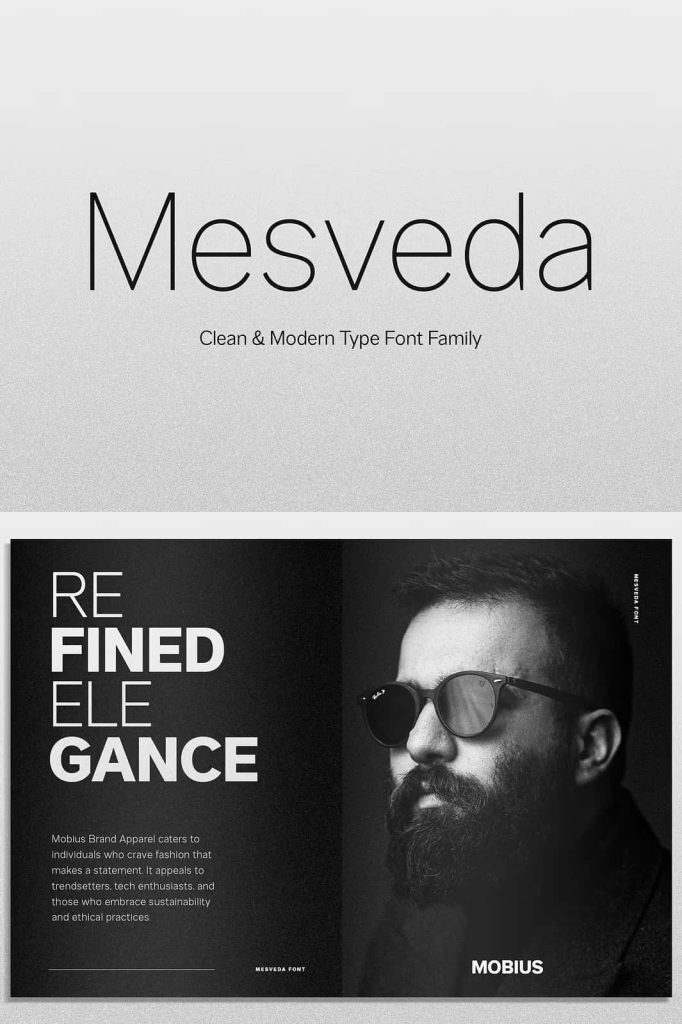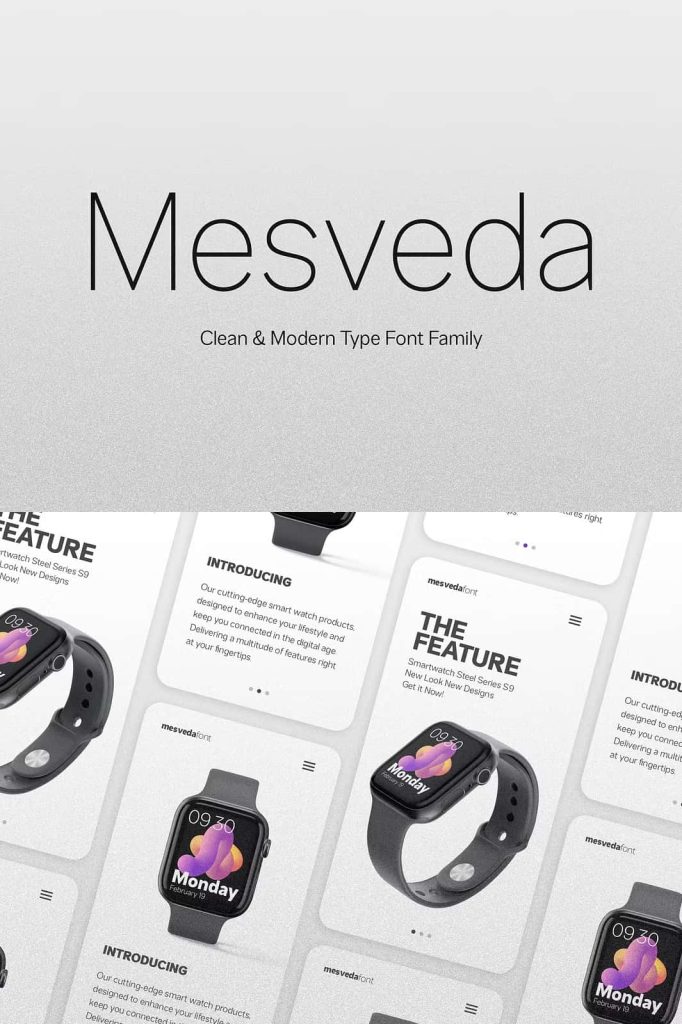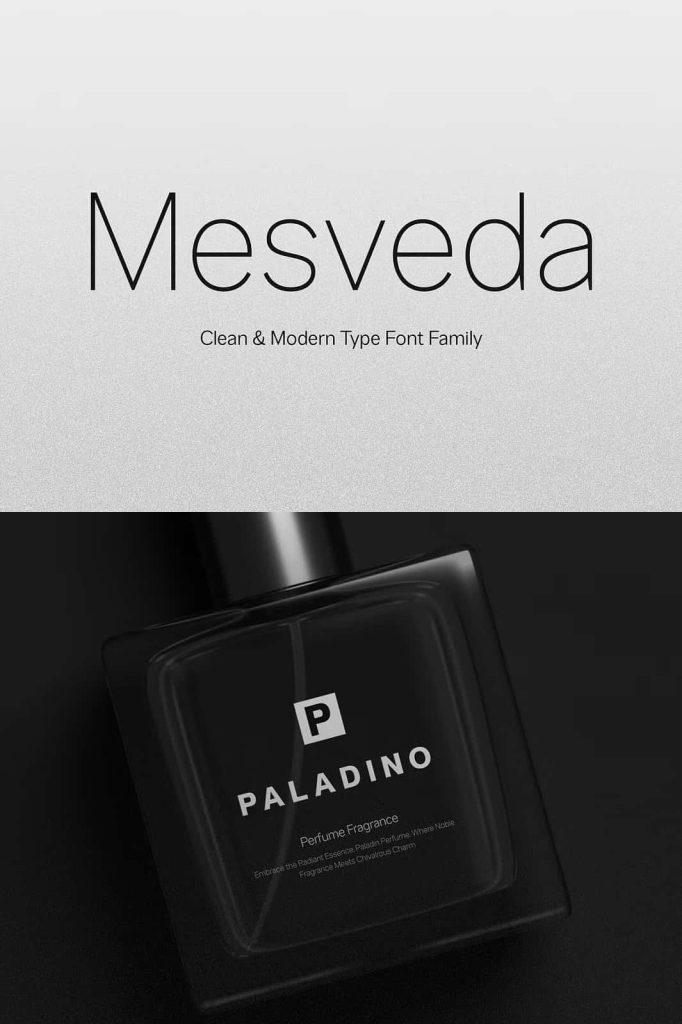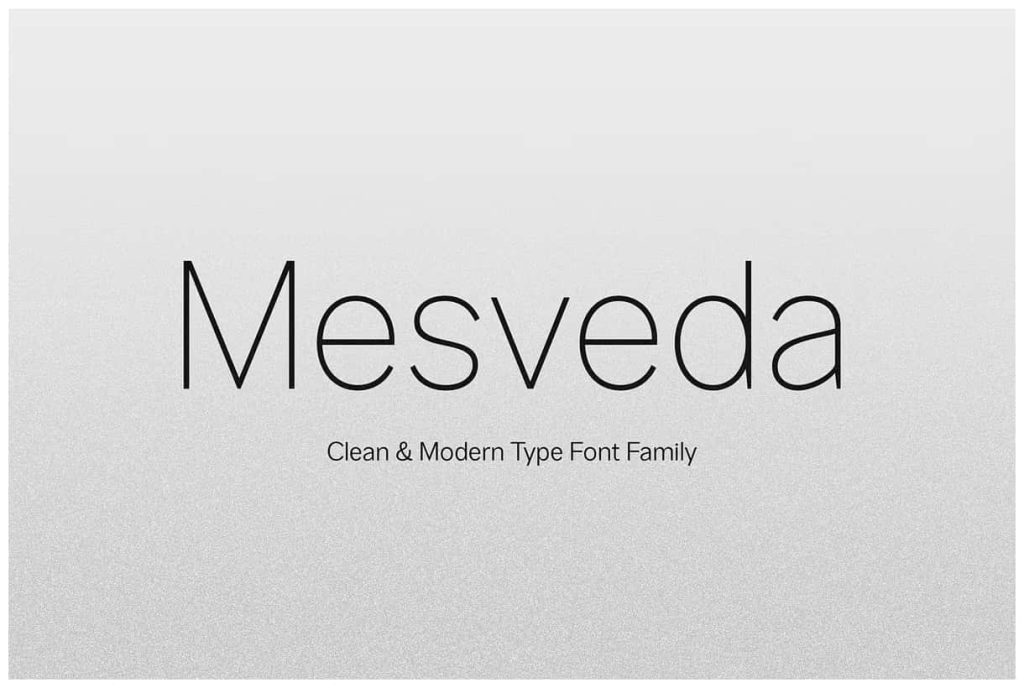
Mesveda – Clean Modern Typeface FontleastedMarch 22, 2025Fonts Mesveda is a Clean Modern Typeface Sans Font Family, Simple Aesthetic yet Minimalist. Download